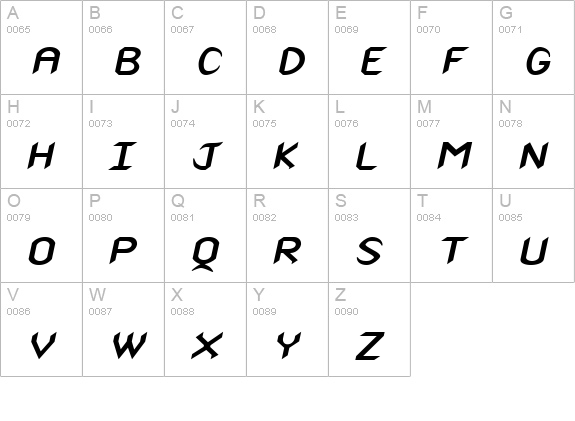
Spike-Extended Bold Italic is a strong, high-contrast, extended-width, italic variant in the Spike typeface family \xE2\x80\x94 well suited to headlines, attention-grabbing titles, and strong calls-to-action.
Introducing Spike-Extended Bold Italic, an exquisite font that combines sophistication and modernity to bring your designs to new heights. With its bold and italicized appearance, this font exudes confidence and adds a touch of elegance to any project. Spike-Extended Bold Italic is perfect for a wide range of applications, from branding and logo design to advertising and editorial work. Its balanced and well-defined letterforms make it easy to read, ensuring optimal legibility across various mediums. This font's versatility is further enhanced by its extended character set, which includes multilingual support for numerous languages, allowing you to communicate your message effectively to a global audience. Whether it's for print or digital, Spike-Extended Bold Italic will make your text stand out with its unique and captivating style. What's even better is that Spike-Extended Bold Italic is available for free download exclusively at FontsMarket.com. We believe that creativity should be accessible to all, which is why we are thrilled to offer this exceptional font to designers, artists, and enthusiasts alike, without any cost involved. Don't miss out on the opportunity to enhance your designs with Spike-Extended Bold Italic. Download it now for free at FontsMarket.com and unlock a world of possibilities for your next creative endeavor.